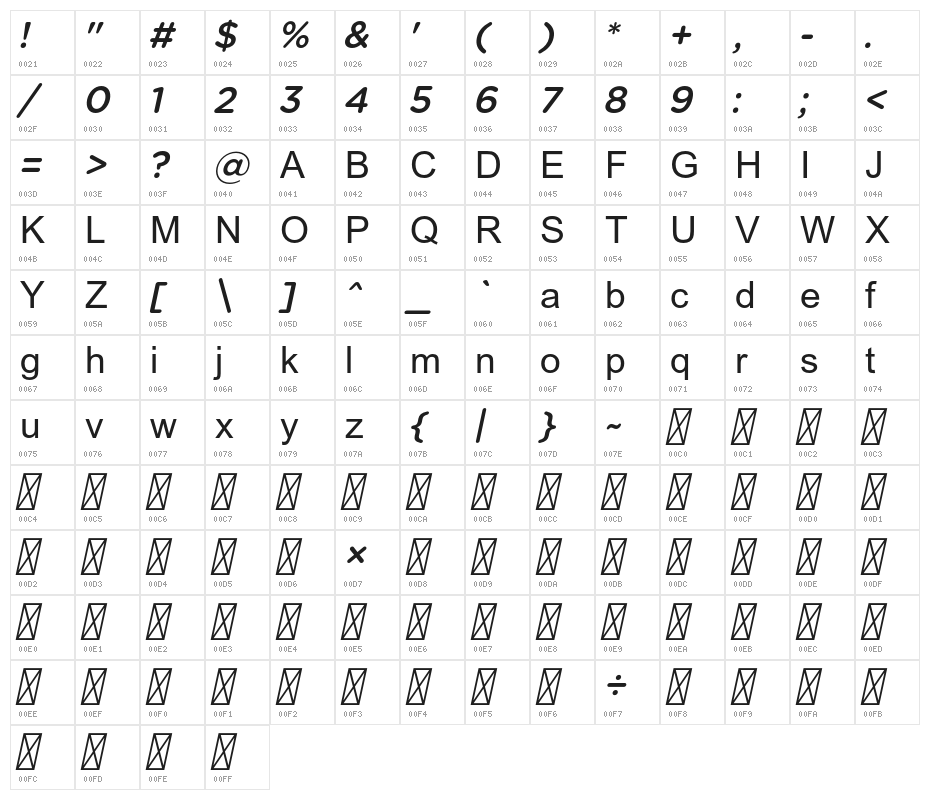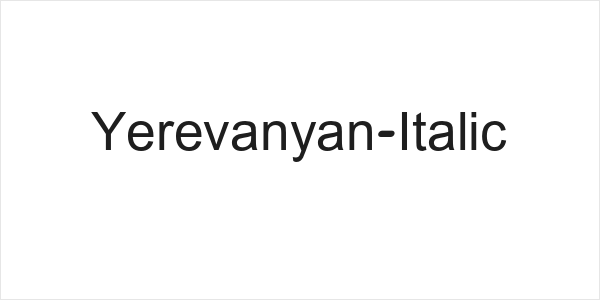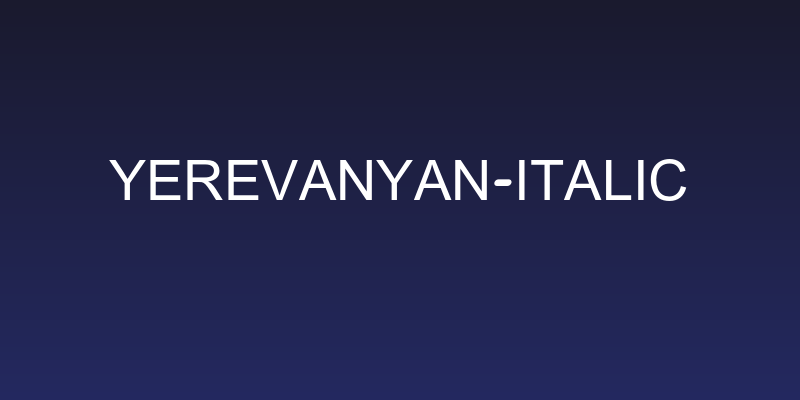
Yerevanyan-Italic Font
Yerevanyan-Italic Description
This font features a clean and modern sans-serif design with a slight italic slant, providing a sense of movement and elegance. The characters are well-proportioned, with consistent stroke widths that offer a balanced and harmonious appearance. The uppercase and lowercase letters are distinct and easily readable, making it suitable for various applications. The numerals are clear and straightforward, ensuring legibility in both digital and print formats. Special characters are included, maintaining the font's cohesive style throughout.
| Proposed Projects | Ideal for branding, editorial design, websites, and advertising where a modern and elegant look is desired. |